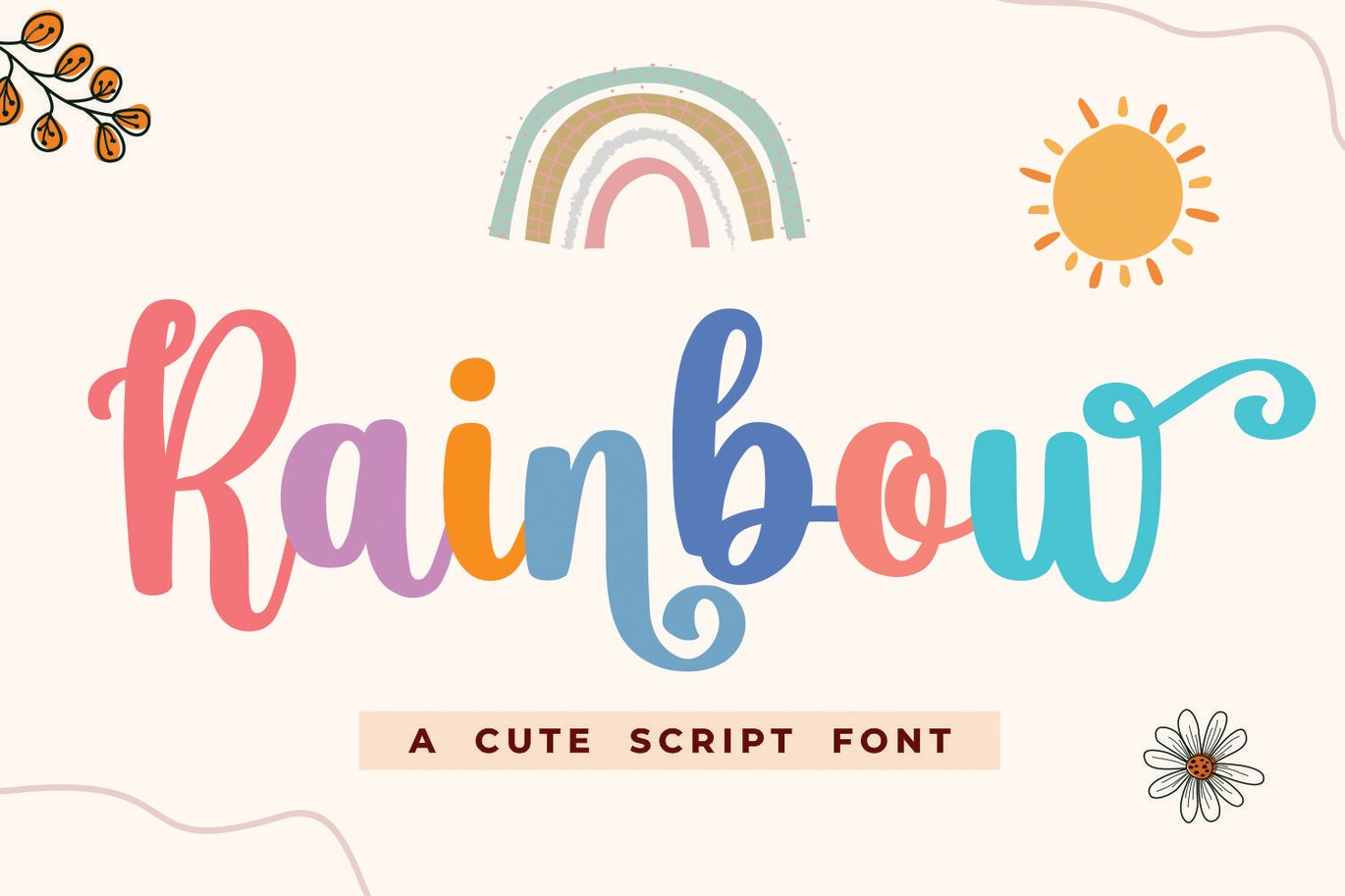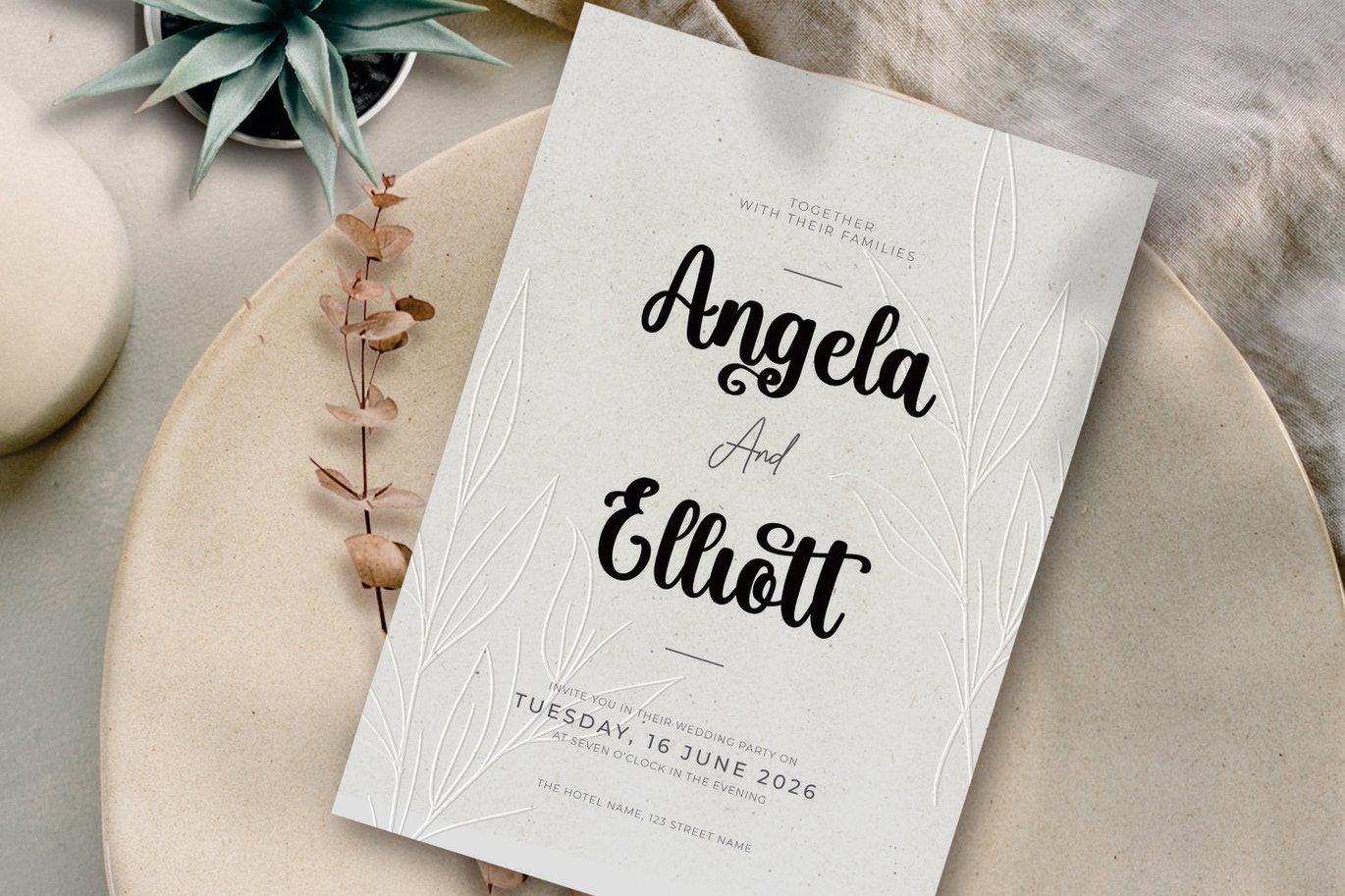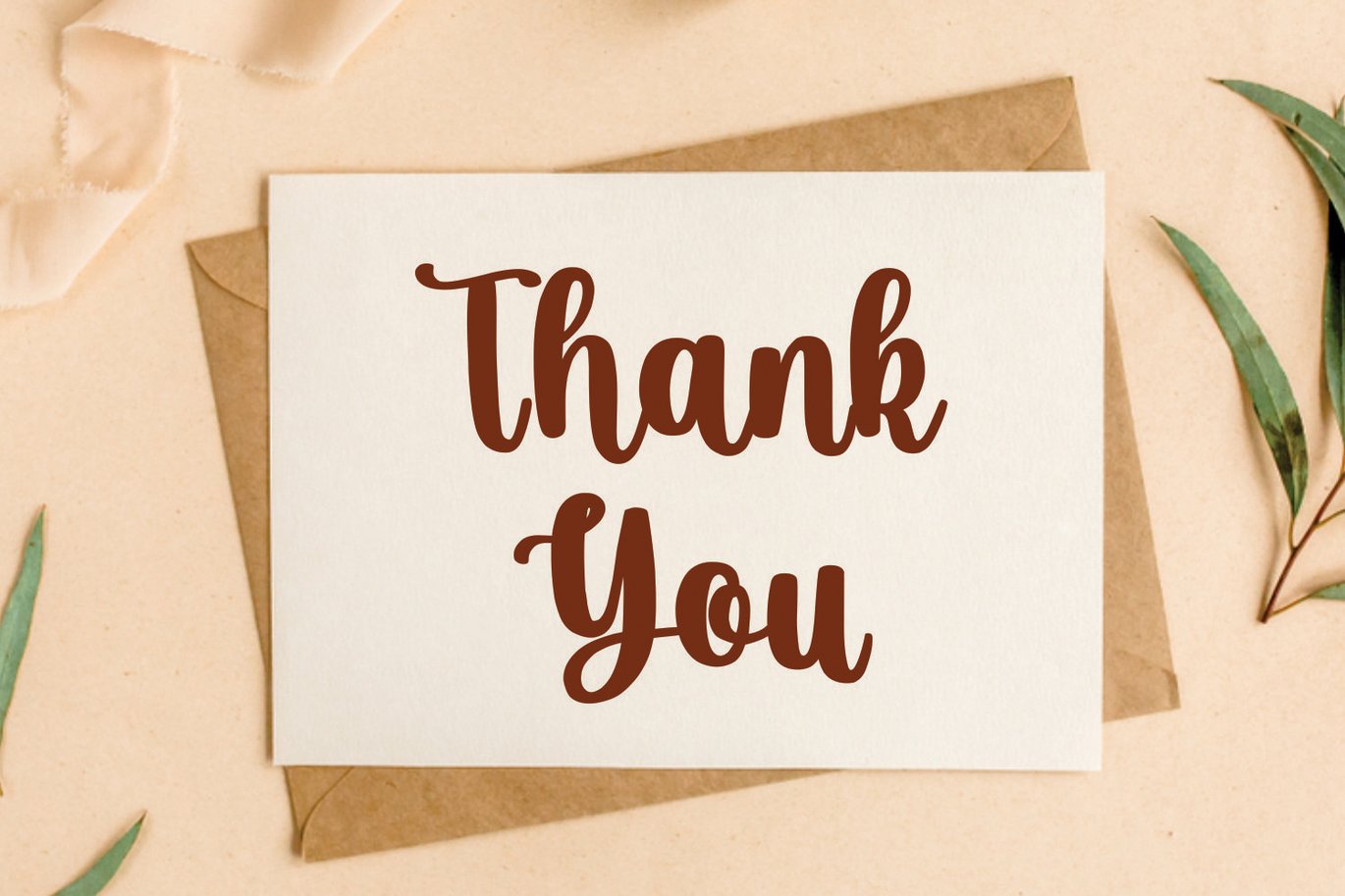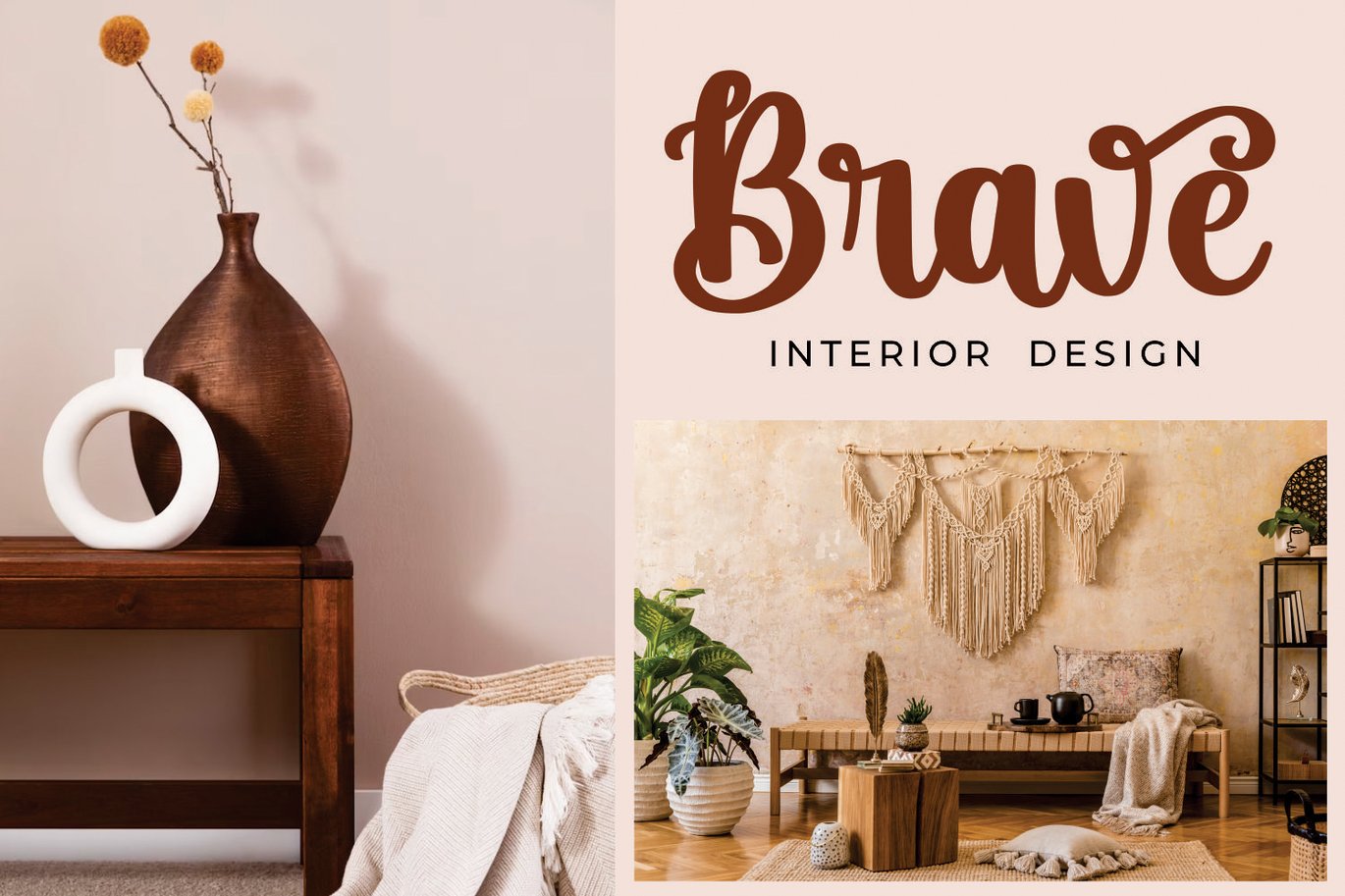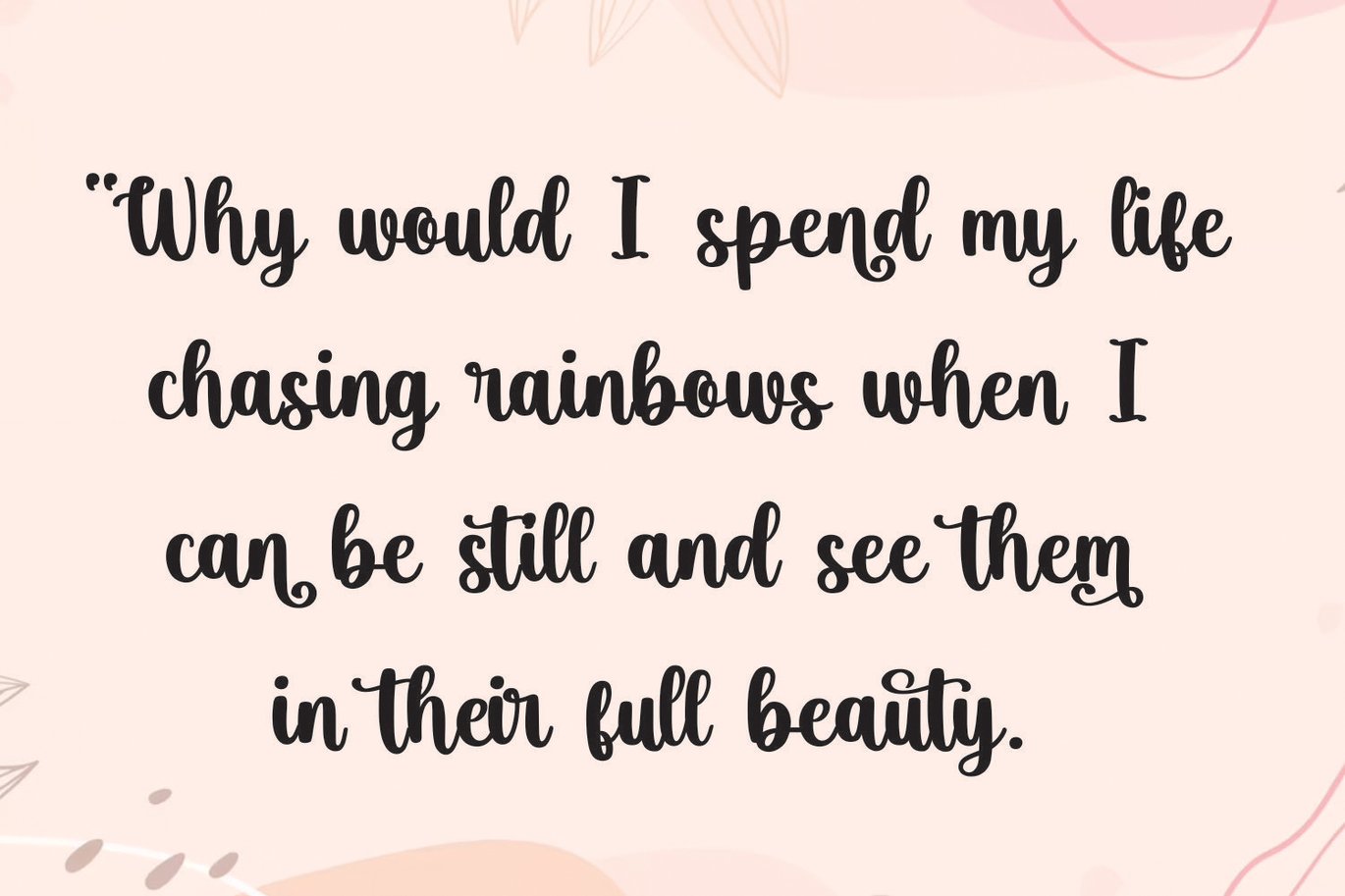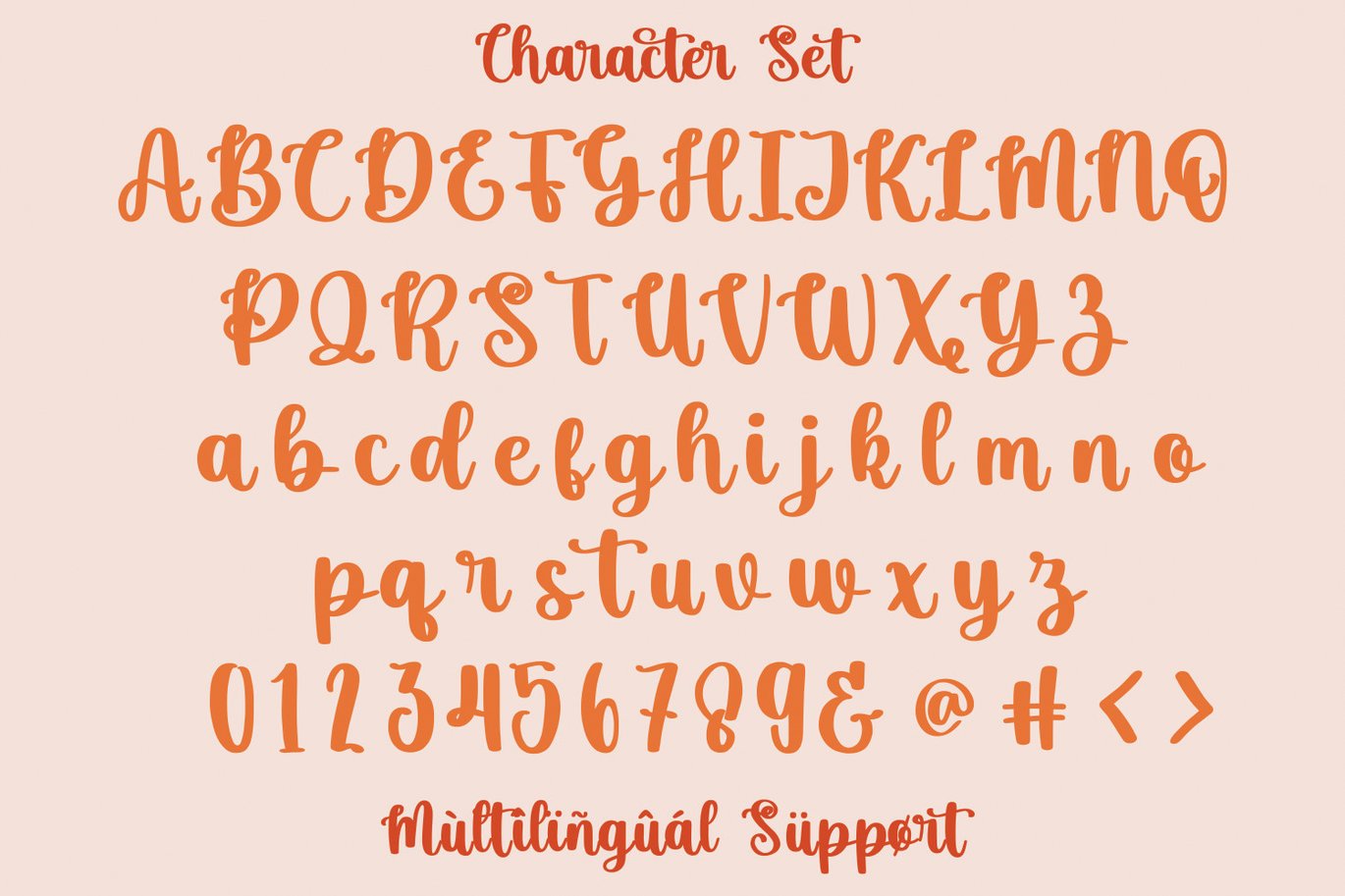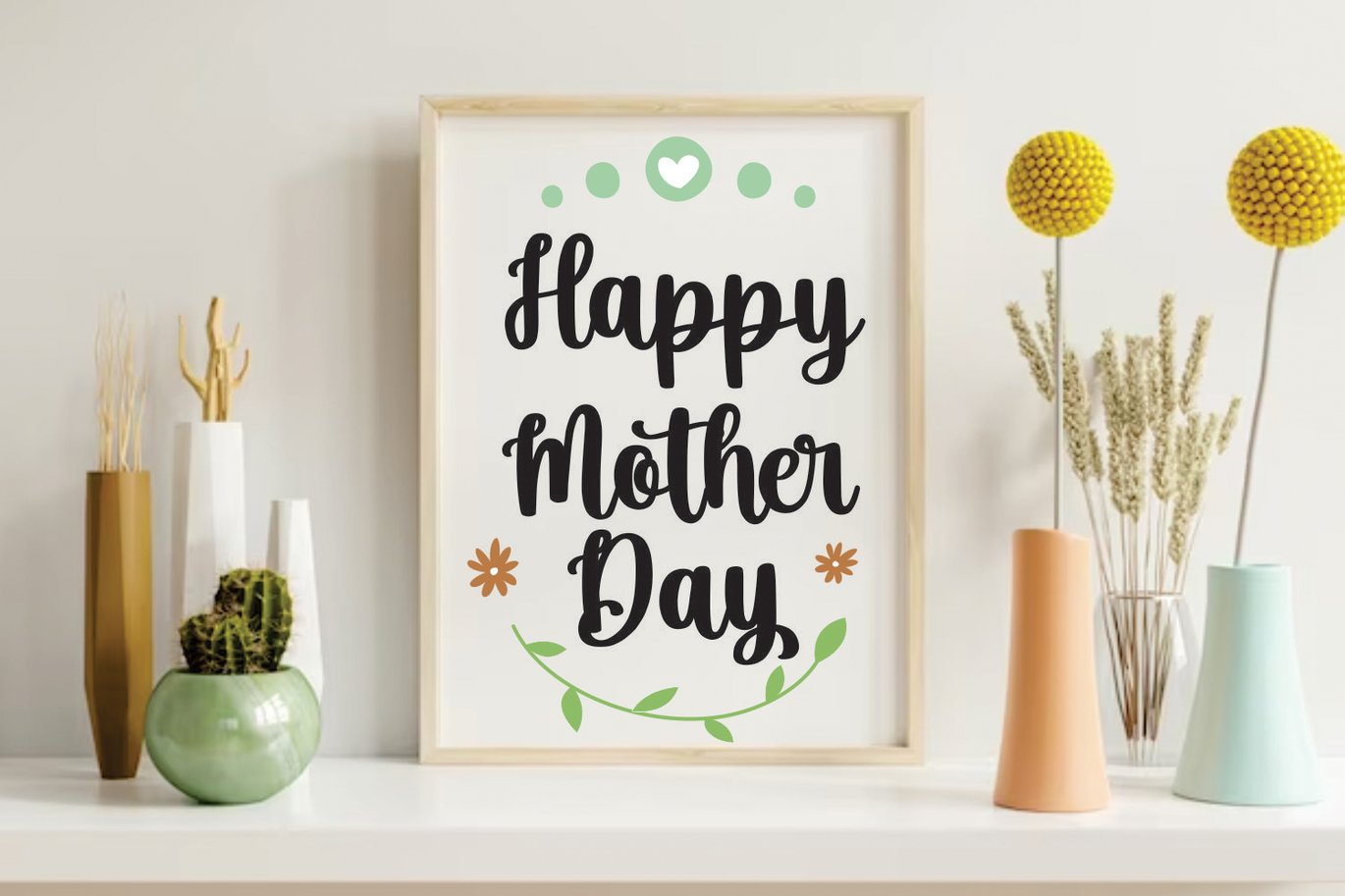
Rainbow – Christmas Font
Introducing Rainbow – a delightful font that will add a burst of color and whimsy to your designs. This charming script font is inspired by the joy and playfulness of rainbows, bringing a touch of cheerfulness to any project.
With its smooth curves and adorable details, Rainbow is perfect for creating eye-catching designs. Whether you’re designing greeting cards, children’s books, or party invitations, this font will instantly captivate your audience and make your text come alive.